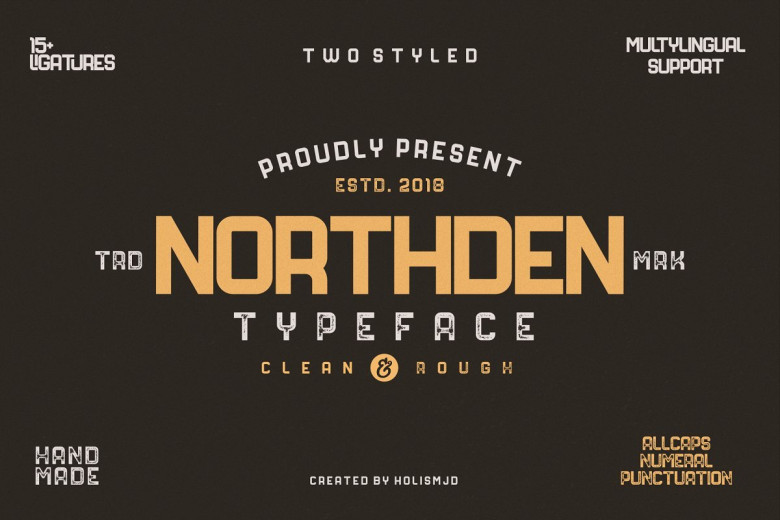
Northden Typeface
This is a great vintage typeface! I think so. If you are looking to use a vintage style then this is it, it is obvious to you, your customers will be very satisfied. This font is ideal for branding and decorate your any project. Introducing Northden Font. Northden is a typeface font with a masculine style that is suitable for your design needs that need a classic, vintage touch, but still modern. This font is perfect, for any logo, product label, poster or design. This font is available in 2 styles, clean and rugged, available in OTF and TTF formats. As well as supporting multilingual languages …